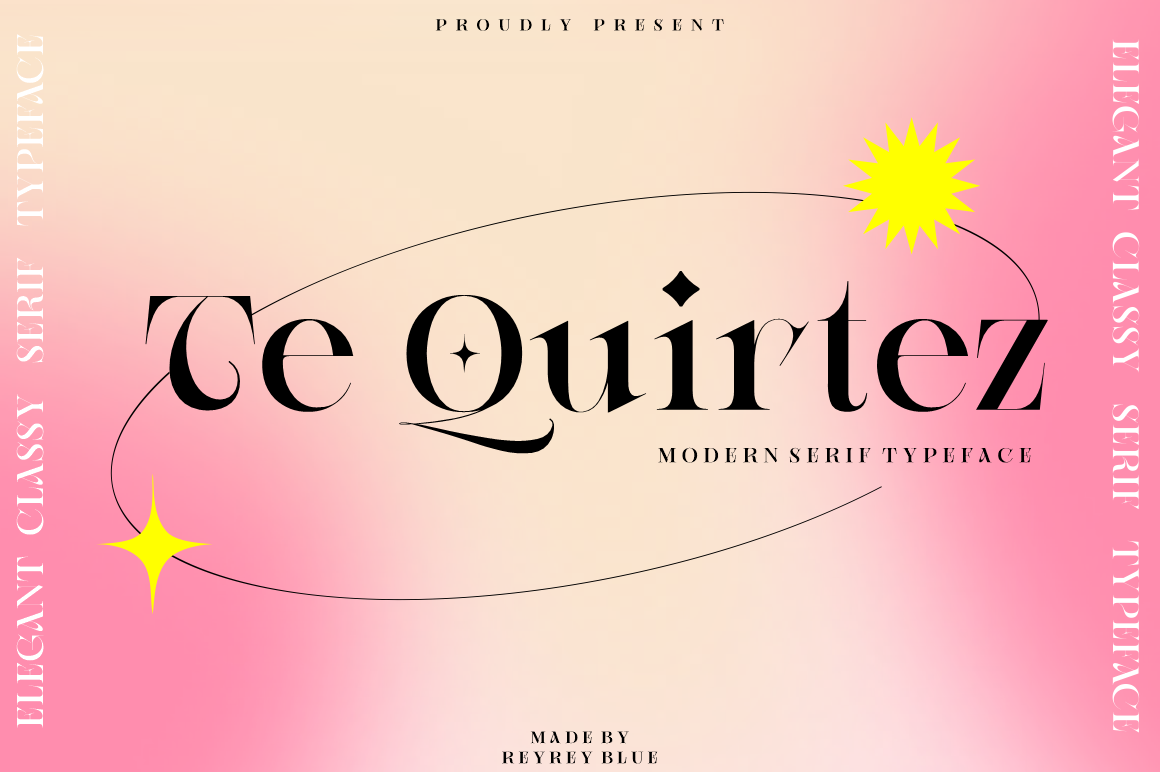
Te Quirtez - Modern Display Serif Font
Designed by Reyrey Blue
About Te Quirtez - Modern Display Serif
Te Quirtez is an elegant and classy serif typeface with strong character. Te Quirtez comes with some alternates and ligatures, so you can combine it to make a perfect typography design. It's perfect for branding, logo, packaging, header, title, t-shirt design, poster, band, music, album, and more.